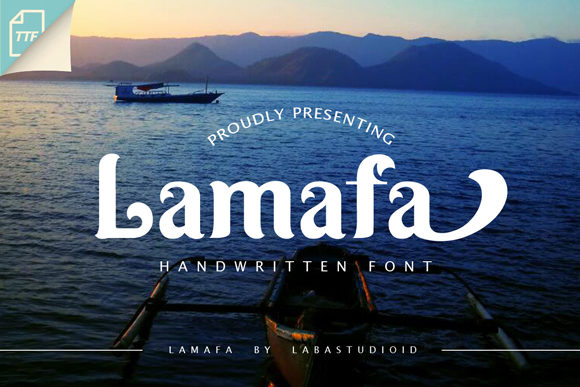
Lamafa Font
Journey into the enchanting world of Lamafa Font, a captivating calligraphy script that dances across your screen with unparalleled charm and elegance. Its bold strokes, reminiscent of a skilled calligrapher's hand, bestow a touch of sophistication upon any project, leaving a lasting impression that lingers in the minds of all who encounter it.
Immerse yourself in the boundless creativity that Lamafa Font offers. Its versatility knows no bounds, effortlessly adapting to a myriad of contexts and styles. Whether you seek to adorn your designs with a touch of timeless grace or make a bold statement with striking headlines, Lamafa Font rises to the challenge, transforming your vision into a captivating masterpiece.
Step into a realm where imagination intertwines with reality, where words take flight and dance upon the page. Lamafa Font's enchanting curves and flourishes cast a spell, drawing your audience into a world of enchantment and wonder. Its captivating presence elevates ordinary text into an extraordinary spectacle, captivating hearts and minds alike.
With Lamafa Font as your creative companion, unlock the door to limitless possibilities. Its harmonious flow lends itself beautifully to wedding invitations, adding a touch of elegance to life's most cherished moments. Unleash your inner artist and create stunning logos that exude professionalism and sophistication. Craft social media posts that captivate your audience, leaving them yearning for more.
Beyond its versatility, Lamafa Font possesses an inherent charm that draws people in. Its bold strokes and sweeping curves evoke a sense of nostalgia, reminiscent of handwritten letters from a bygone era. It breathes life into your designs, imbuing them with a sense of warmth and authenticity that resonates with audiences on a deeper level.